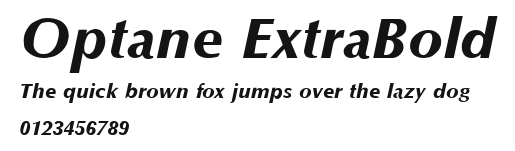
Optane ExtraBold Preview
About Optane ExtraBold.ttf
Optane ExtraBold.ttf is a modern, elegant sans-serif font designed for ultimate readability and visual harmony. Perfect for branding, headlines, web design, and print materials.